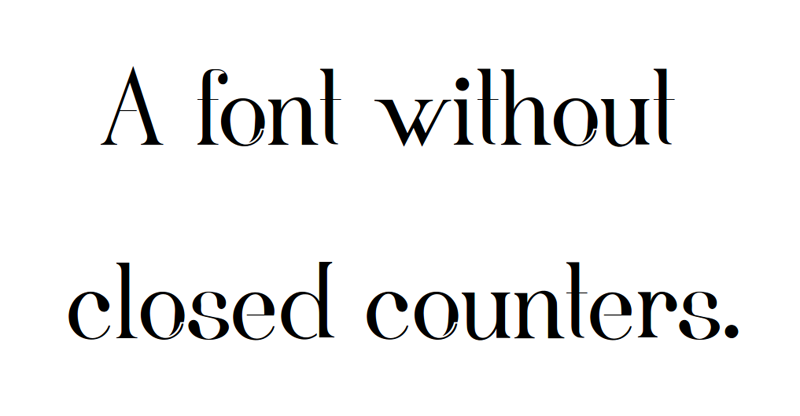
Preview and download Fortunata Font. Created by Bálint Erdősi in Basic Serif styles with Donationware license.
This is the 3nd version of this font, further refinements in glyph forms and kerning may still follow. The concept was to create a font while avoiding any closed counters. Later on the counterpart with the closed counters is to be released as well. Apart from open counters the font features rather high stroke contrast (therefore rather suitable for display texts than for body copy), and asymmetric serifs. If you are using my work somewhere, please be so kind to let me know about that… ☺ If you are using my work in a product for commercial purposes, I'd by especially happy if you donated in between 1 and 10 dollars. My Paypal id is: balint.erdosi@aegee.org. Thank you! I hope you will enjoy using this font! Update 20111012: - tinkered a bit with “r”, - added rudimentary kerning, - added € sign. Update 20111012pm: - added some refinements to kerning |